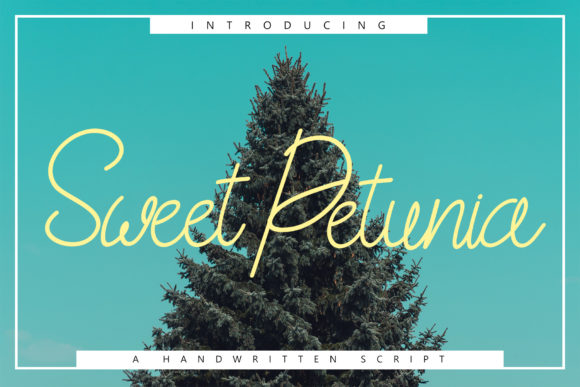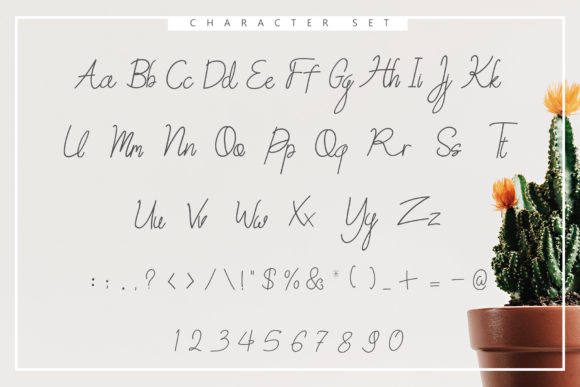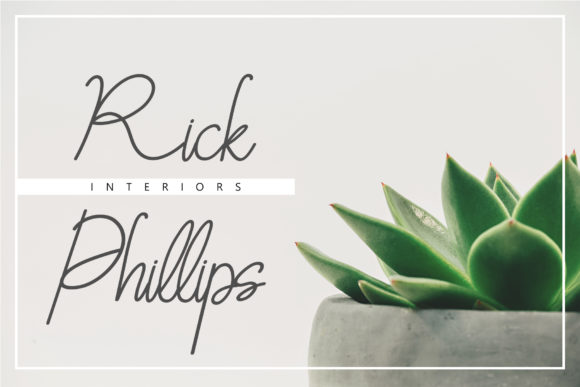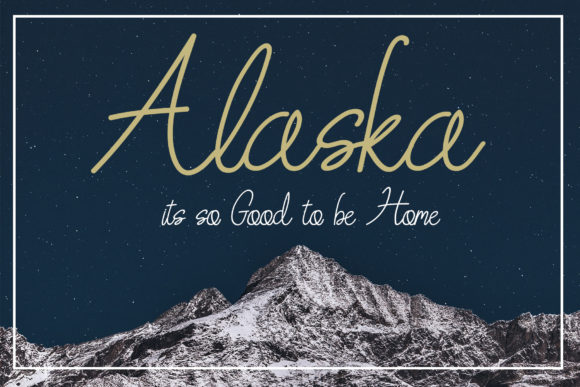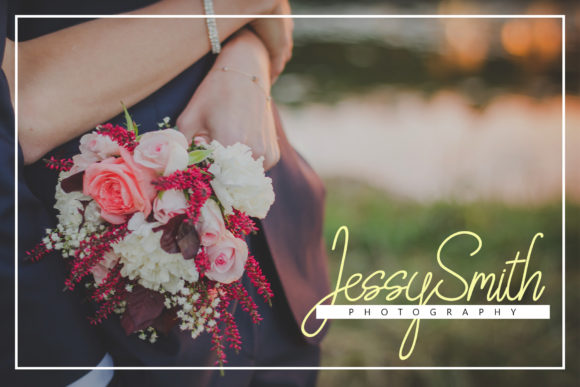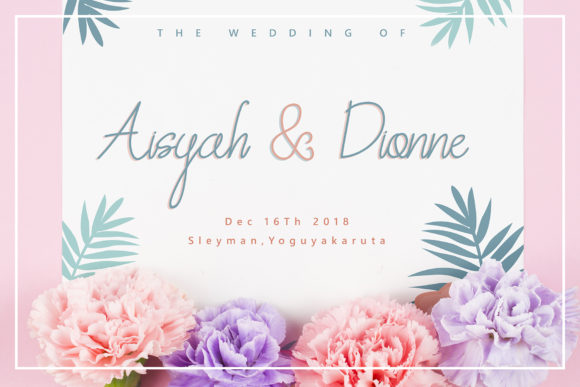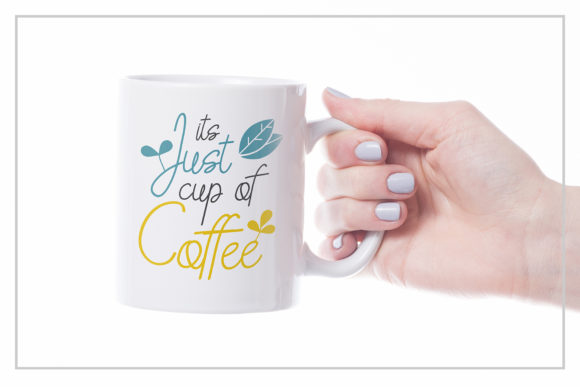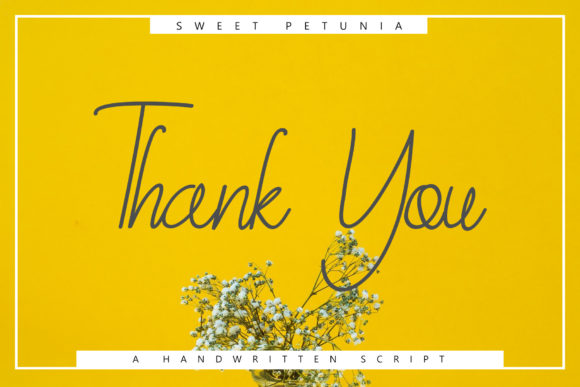
Sweet Petunia Font
About Sweet Petunia Font
The Sweet Petunia is a casual styled handcrafted script. It has thin letters which gives it an elegant feel.
It’s great for logos, blog/web headlines, clothing, invitations, posters, cafe signs, and much more!